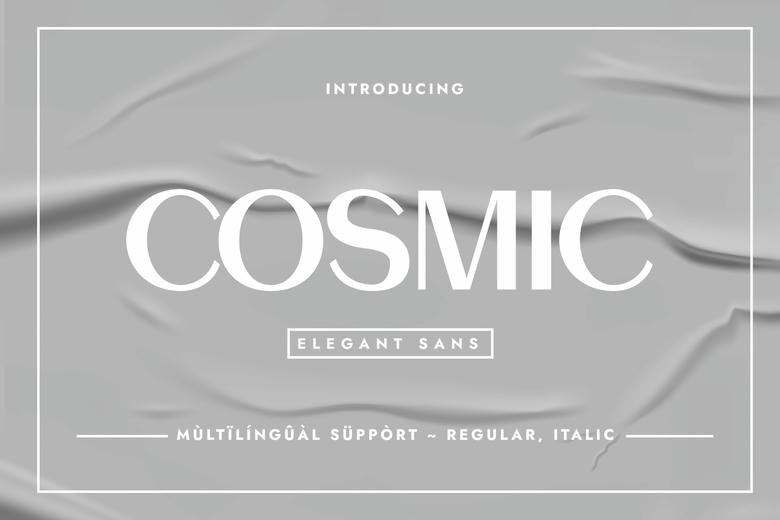
Cosmic Font
Cosmic is a beautiful clean-sans serif typeface. Since the name implies it was intended to design minimalistic perfume labels or cosmetics packaging, but can be applied to other upscale themes like invitations, weddings, fashion design, menus, etc. so that you can experience how little effort can be put in not requiring much effort to achieve good results.
Cosmic Sans Serif Font